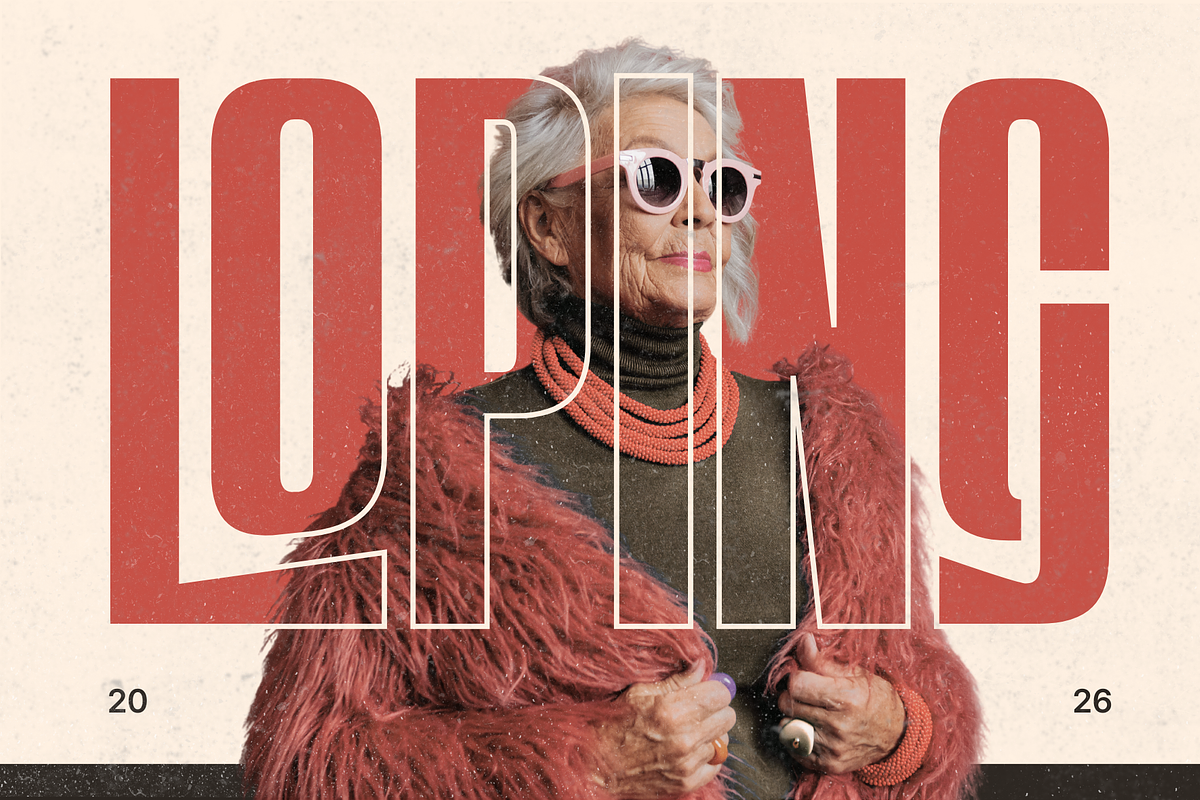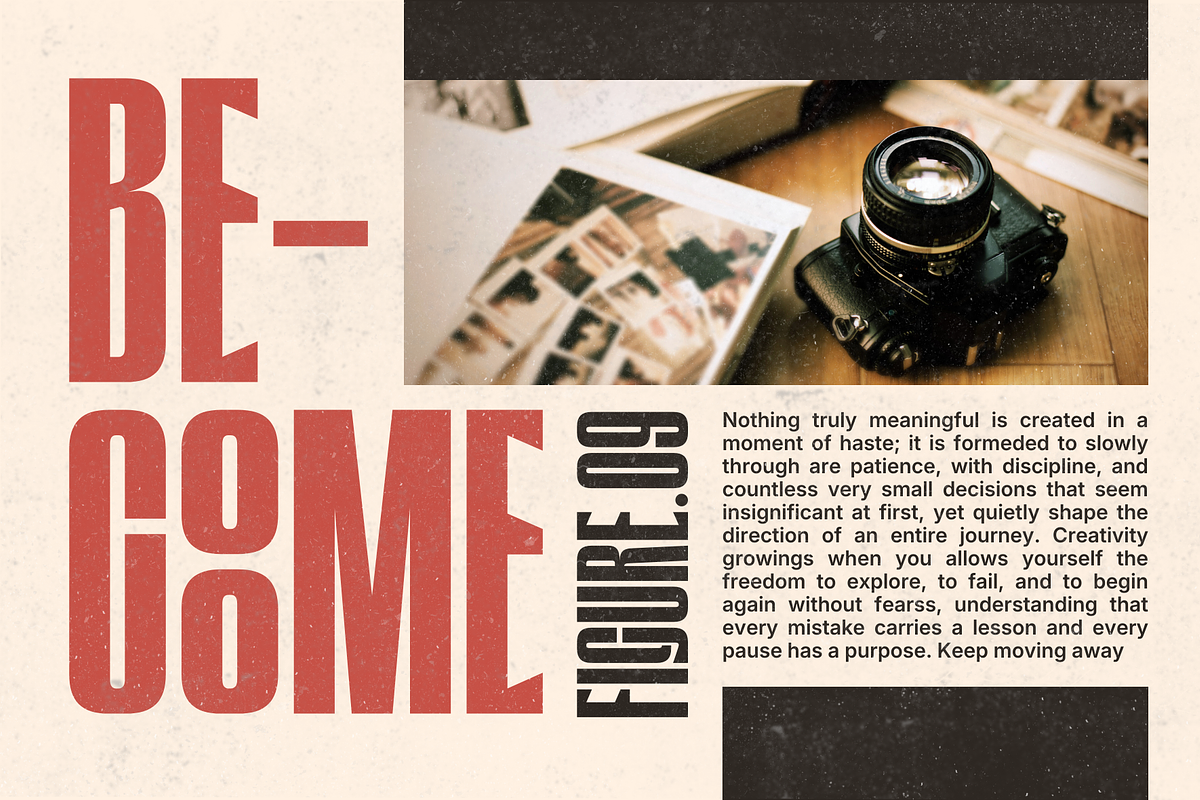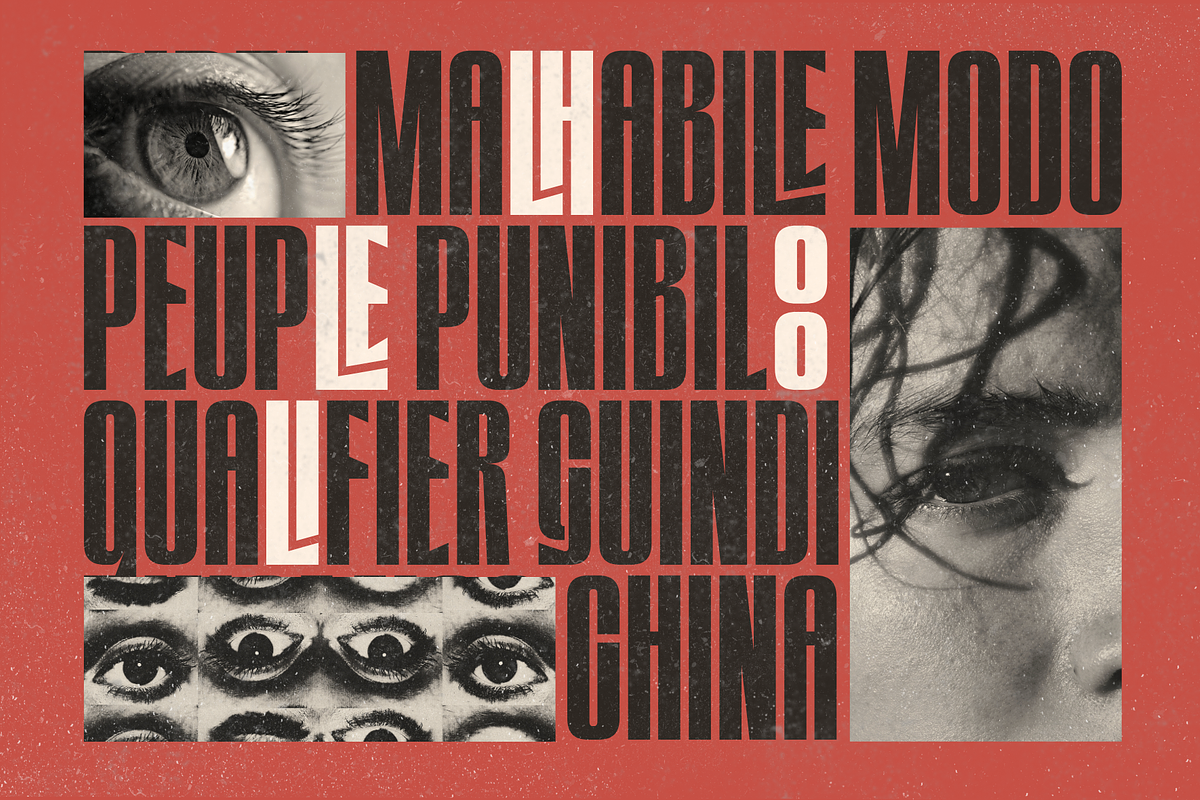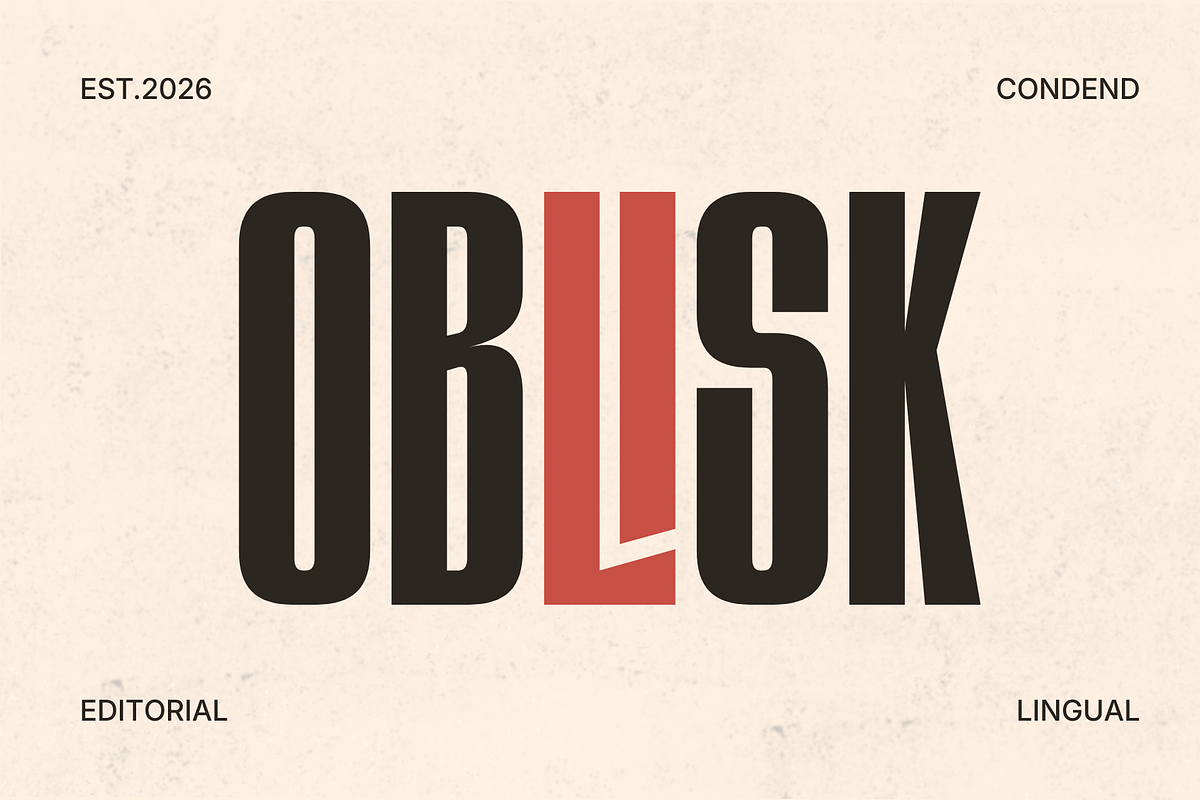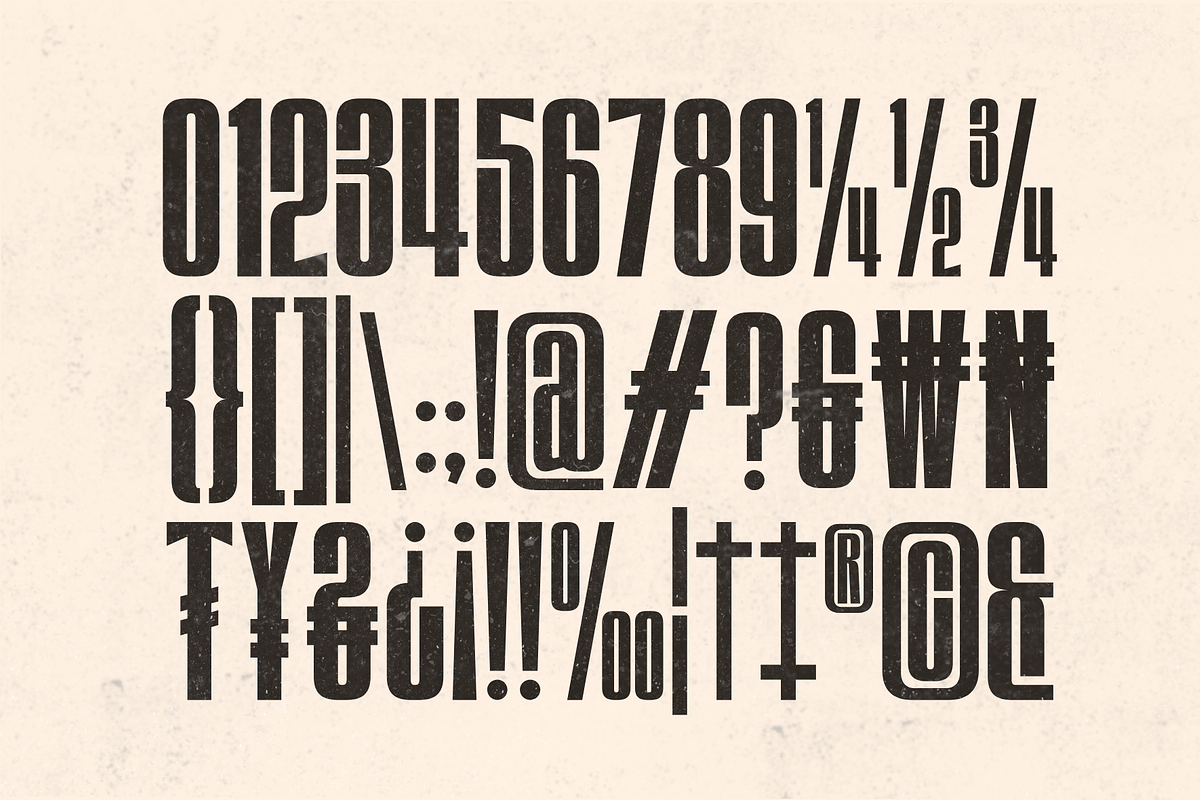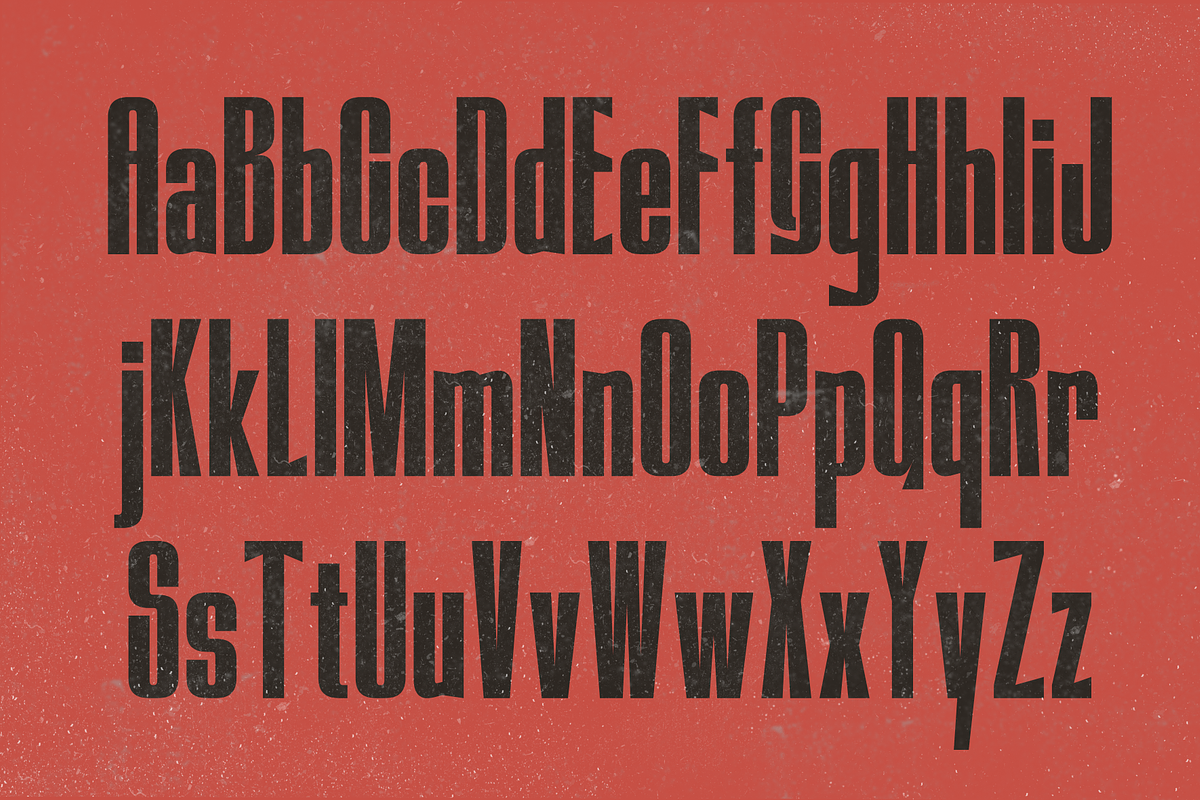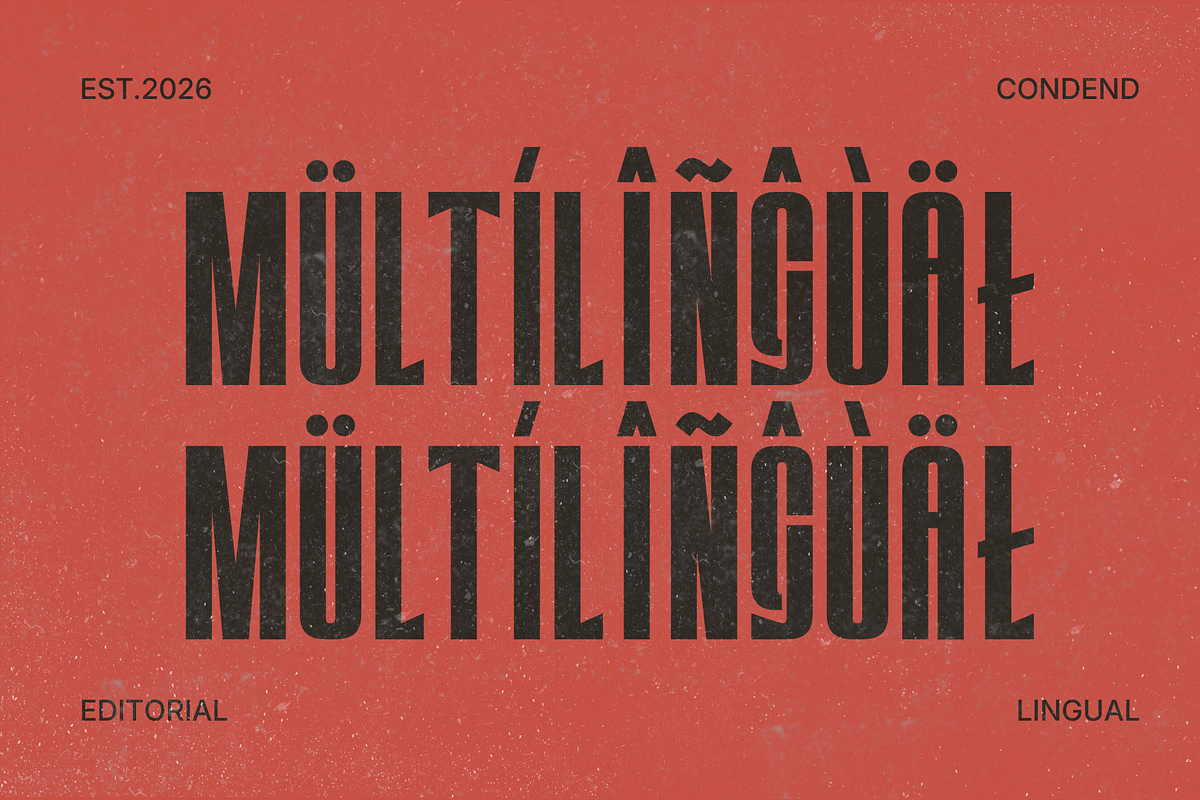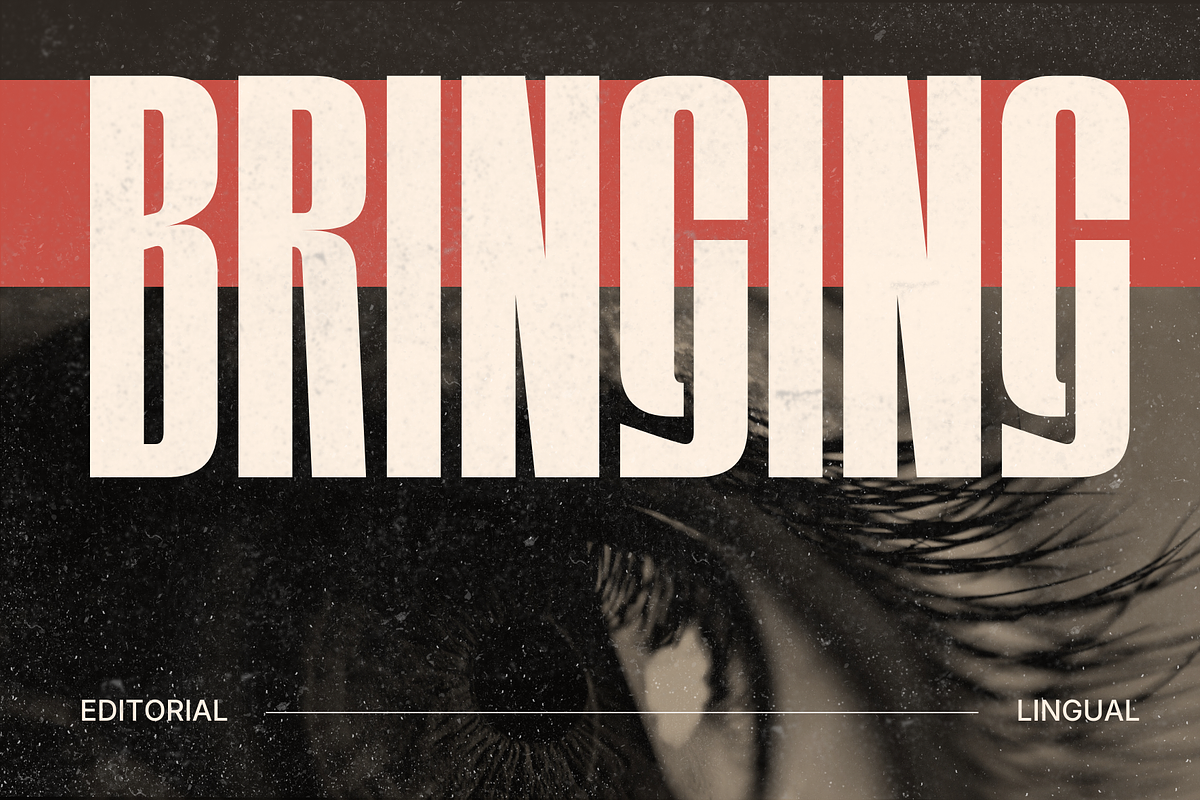
Oblisk – Bold Condensed Display Font
Oblisk is a powerful bold condensed display font designed to deliver strong visual impact. With its tall proportions, clean geometric structure, and commanding presence, this typeface is perfect for editorial headlines, branding, posters, and modern advertising projects.
Its condensed form maximizes space while maintaining excellent readability, making it ideal for bold layouts and statement typography. The strong vertical emphasis gives Oblisk a confident, contemporary, and professional character.
Bold Condensed Style
Uppercase & Lowercase Characters
Clean & Modern Design